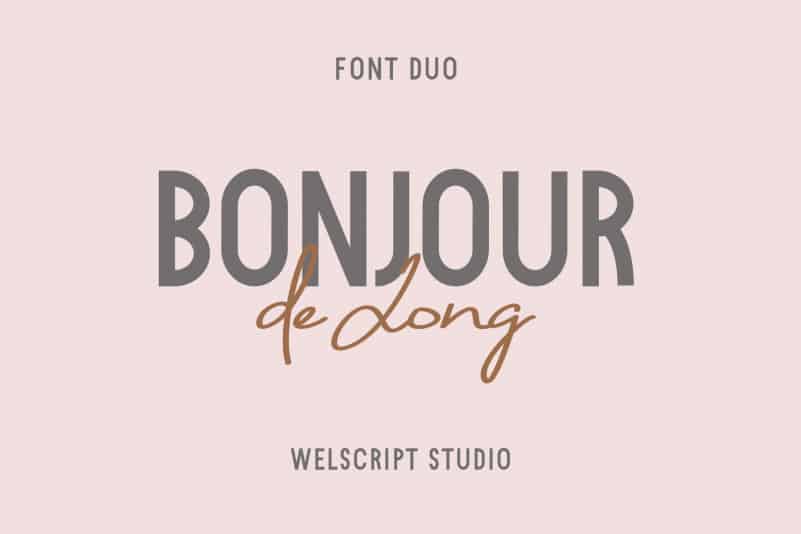
Bonjour de Jong Font Duo
Bonjour de Jong Font, a classy, contemporary pair of handwritten script and basic sans serif fonts. With a stylish expressive script companion, Bonjour de Jong offers beautiful typographic harmony for a diversity of design projects, including logos & branding, wedding designs, social media posts, advertisements & product designs, wedding invitations, add, banner, or anything you need.